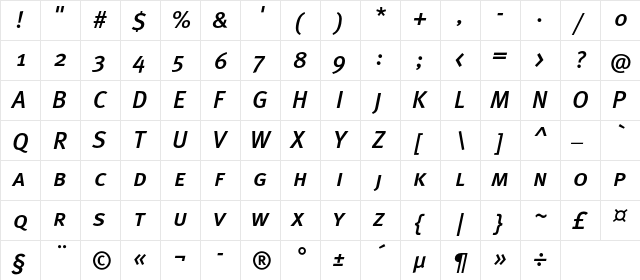
MetaMediumCapsC Italic
Design Context for MetaMediumCapsC Typeface
MetaMediumCapsC takes a measured approach to typography — its balanced proportions and neutral character make it a reliable workhorse for both digital and print work. Its italic angle brings a sense of urgency and motion to the letterforms.
Pro Tip: Use MetaMediumCapsC for emphasis, pull quotes, and subheadings where its slanted energy can add rhythm to the layout.